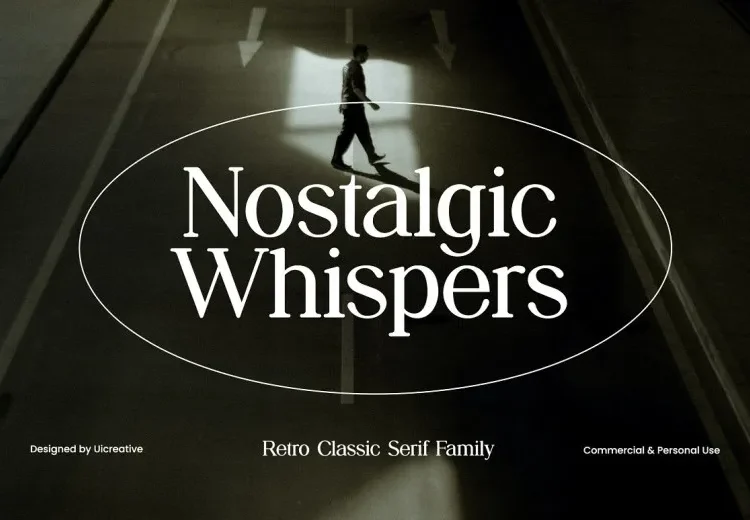
Nostalgic Whispers Font
Nostalgic Whispers by UICreative is a sophisticated serif typeface family featuring clean, refined lines that exude elegance and timeless appeal. Designed for versatility, this font is ideal for a wide range of applications, including logos, signatures, stationery, wedding invitations, and typography quotes. Whether you’re crafting book covers, magazine headers, or website branding, Nostalgic Whispers brings a touch of class and refinement to every project.
This versatile typeface shines in branding applications with both feminine and masculine qualities, making it a perfect fit for fashion-related editorial designs and product packaging. Its unique aesthetic ensures that your designs will stand out while retaining a sense of elegance and sophistication.